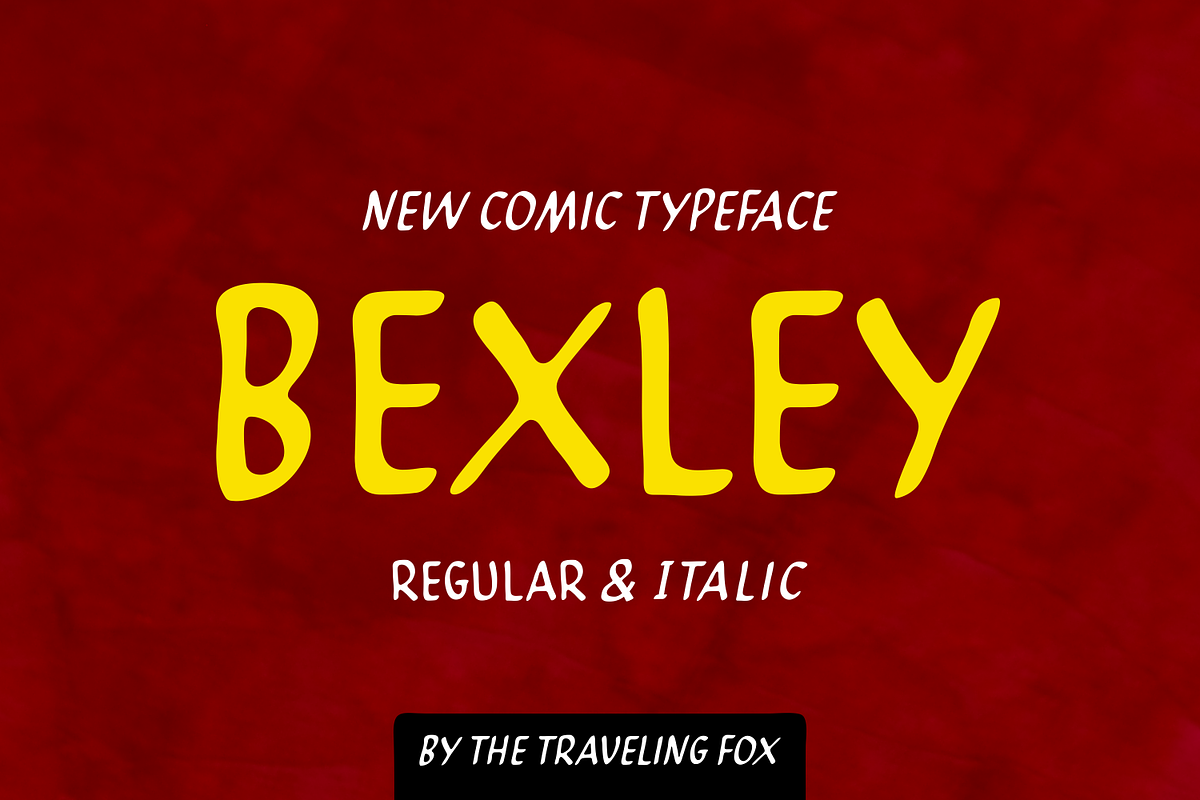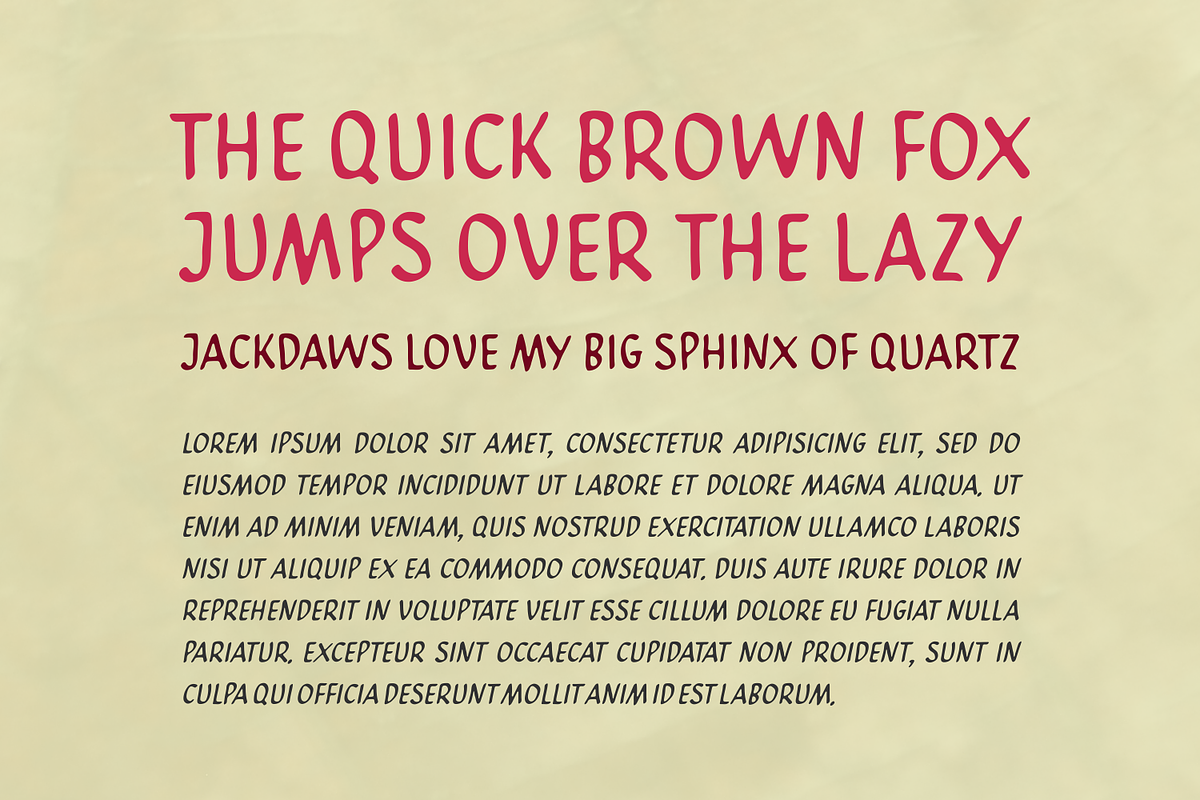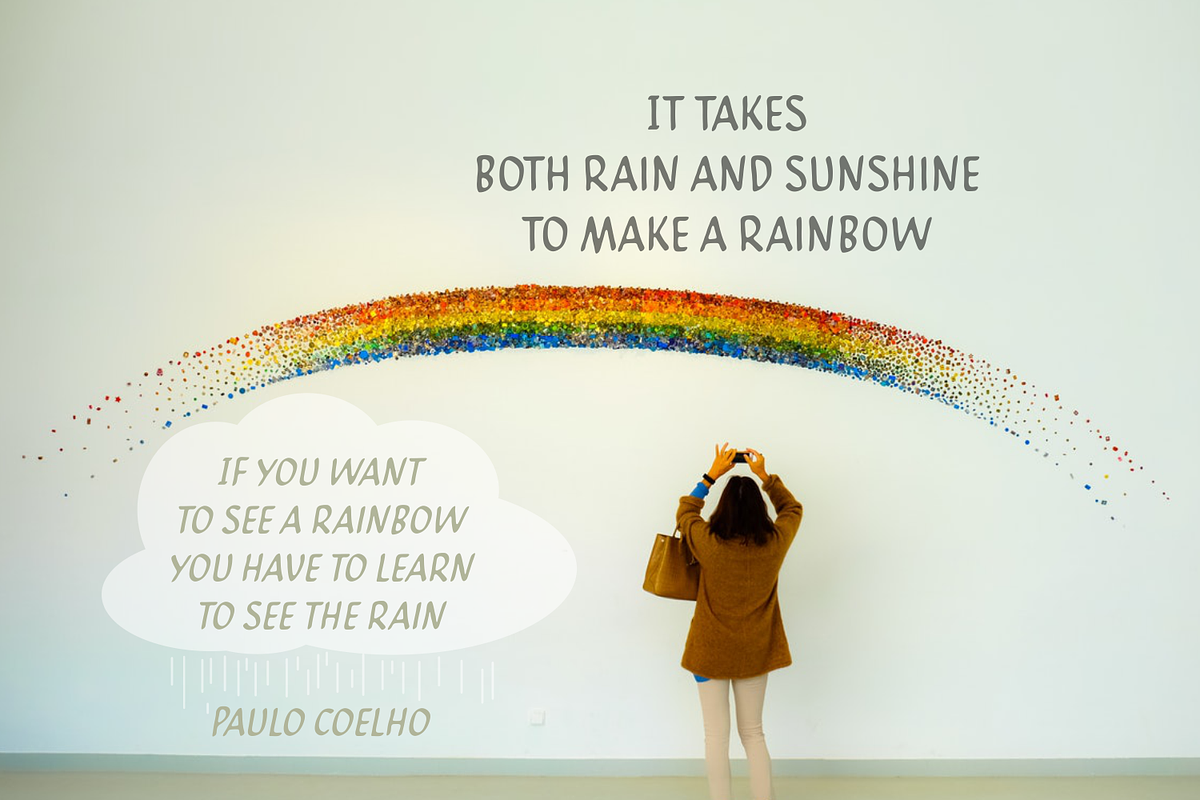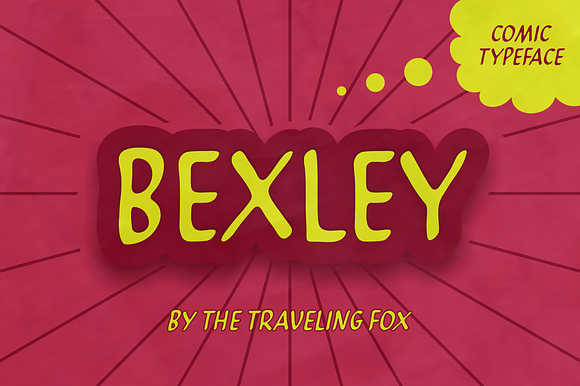
Bexley - Comic Typeface
Bexley is a nifty and warm comic typeface, easily legible and adaptable to a large number of designs. Its freeform weighting makes the typeface look organic, earthy, and casual.